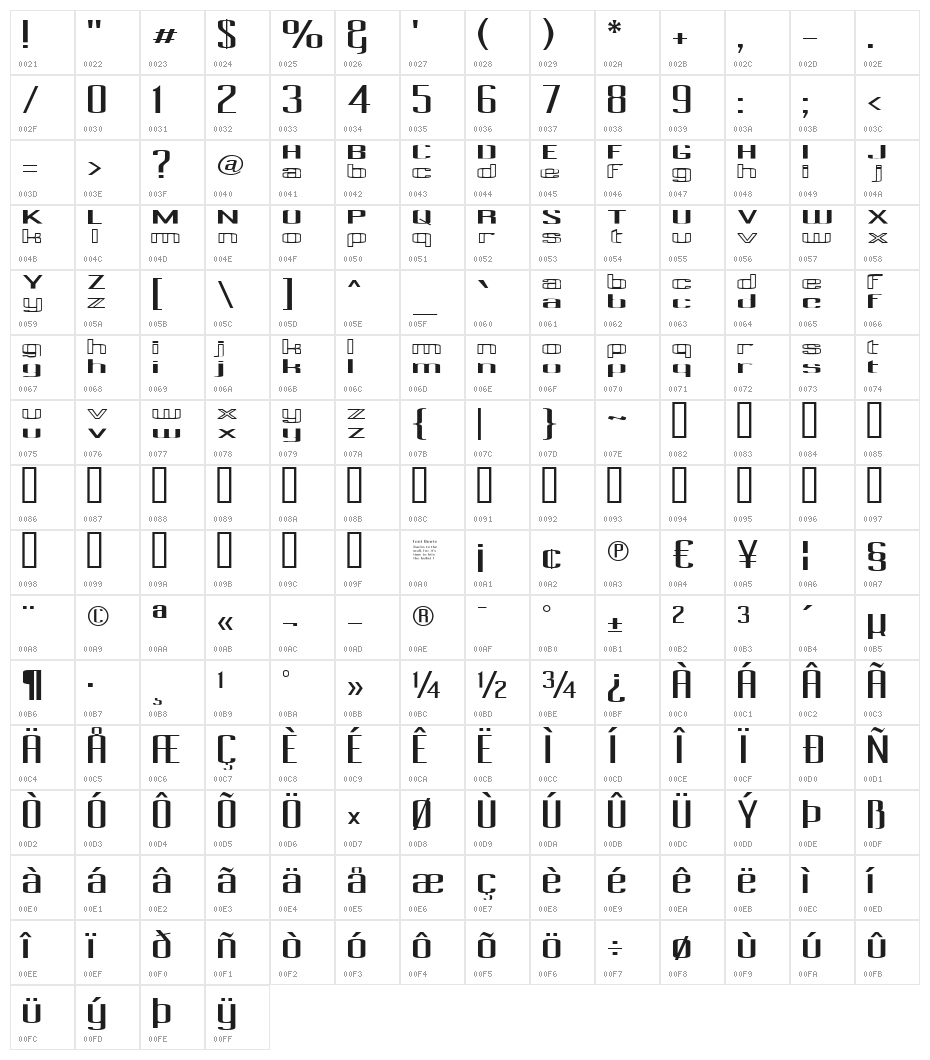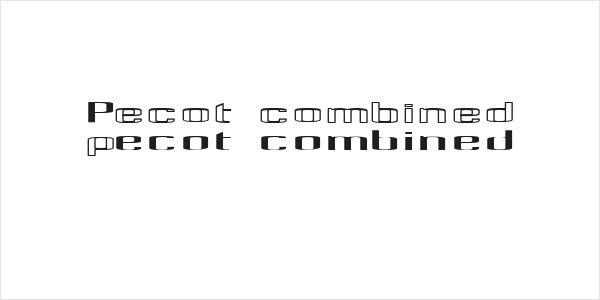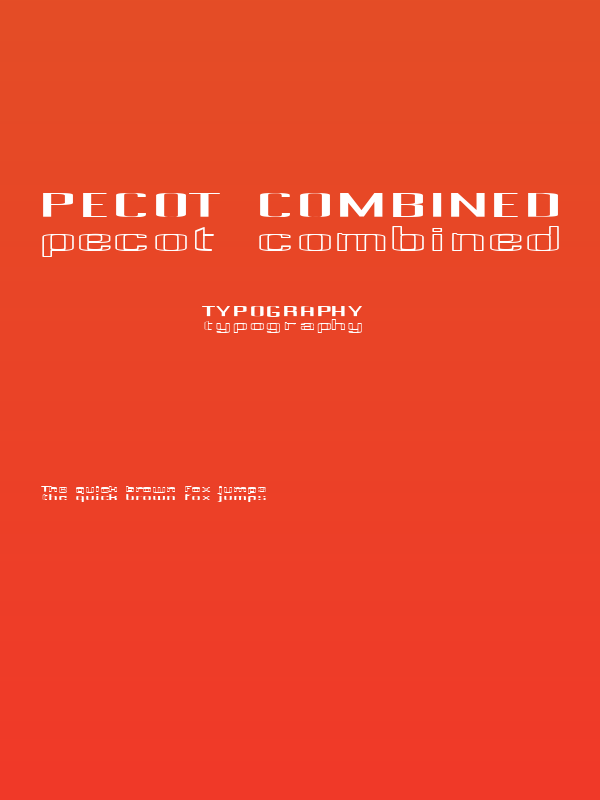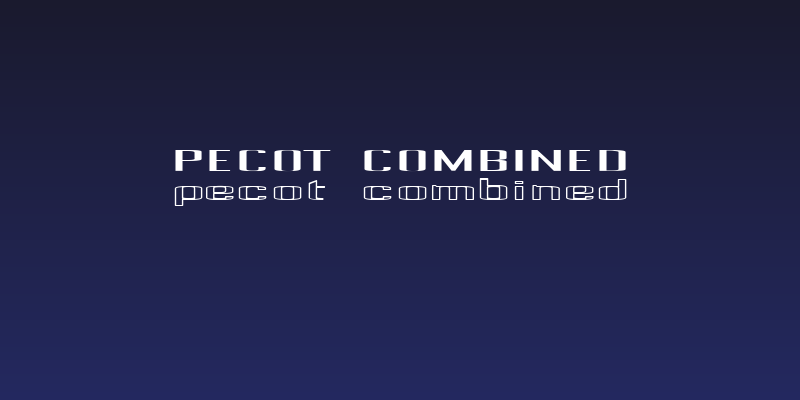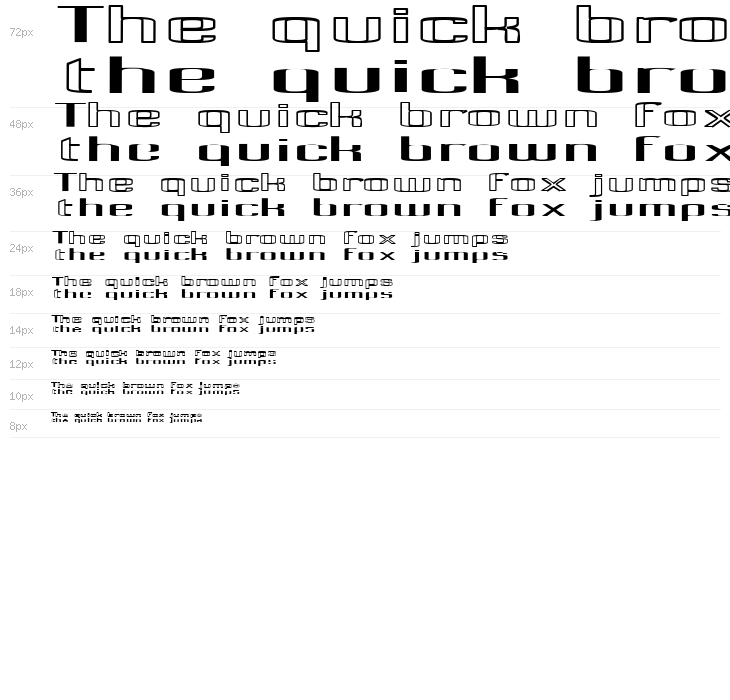
Pecot combined Font
Pecot combined Description
This font features a bold and modern design with a geometric structure. The uppercase letters are characterized by strong vertical and horizontal lines, giving them a sturdy and impactful appearance. The lowercase letters maintain a consistent style, with some unique variations that add a touch of creativity. The numerals are bold and clear, ensuring readability. Special characters are designed to match the overall aesthetic, providing a cohesive look across all glyphs. The font's style is suitable for making a statement, with its high contrast and distinct shapes.
| Proposed Projects | Ideal for branding, posters, headlines, and any project requiring a strong visual impact. |